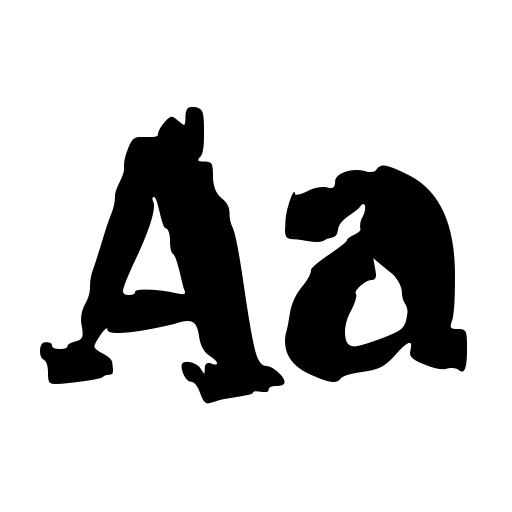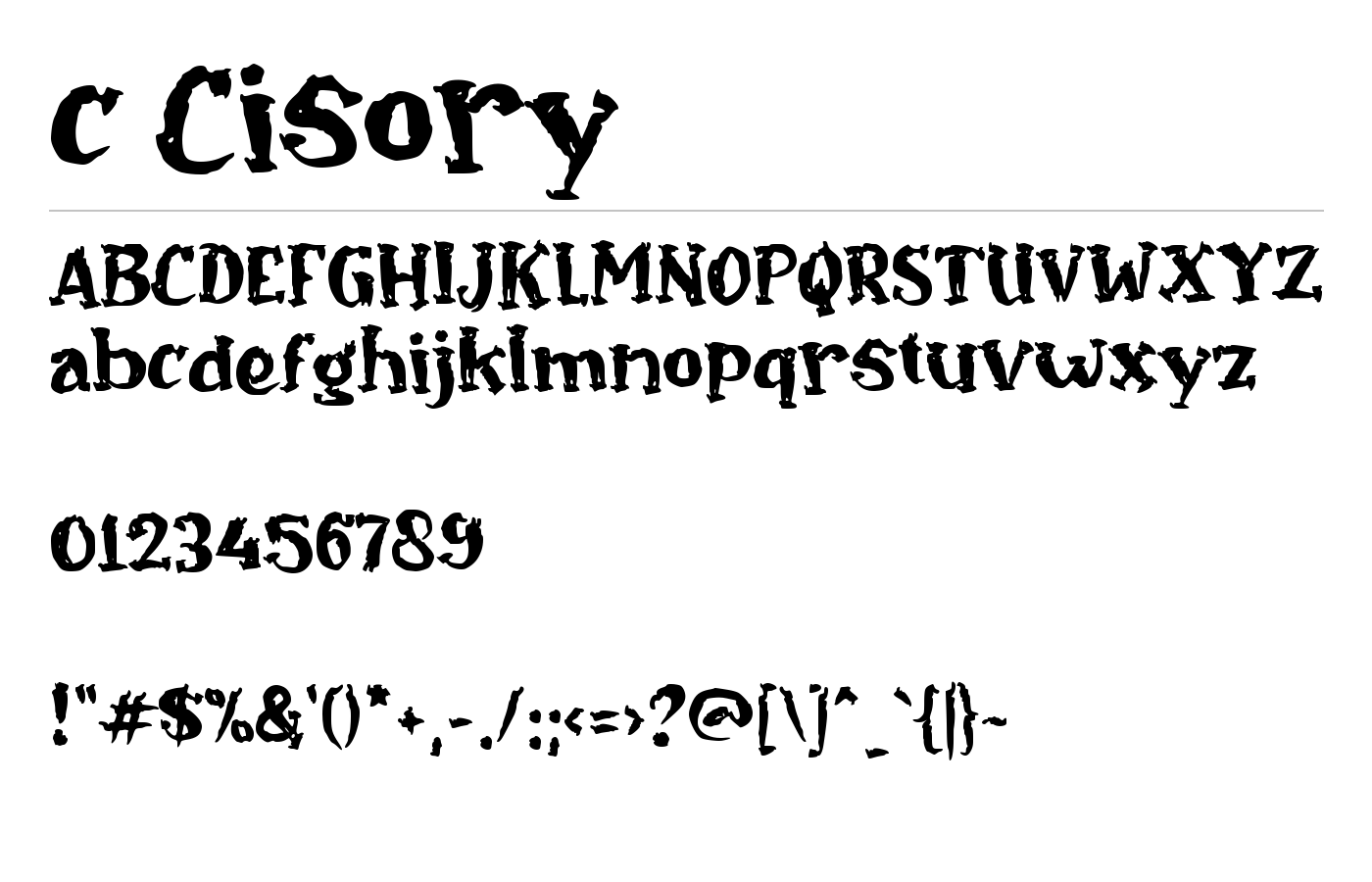
Cisory is a bold, rough-textured serif font with a distressed, hand-crafted appearance that adds a playful yet slightly gritty character. Its uneven edges, irregular shapes, and moderate contrast give it a unique, organic feel, making it ideal for creative projects, posters, and branding that seek a vintage or artistic vibe. This font stands out best in headlines and display uses where its distinctive personality can shine.
c Cisory Font
About c Cisory Font